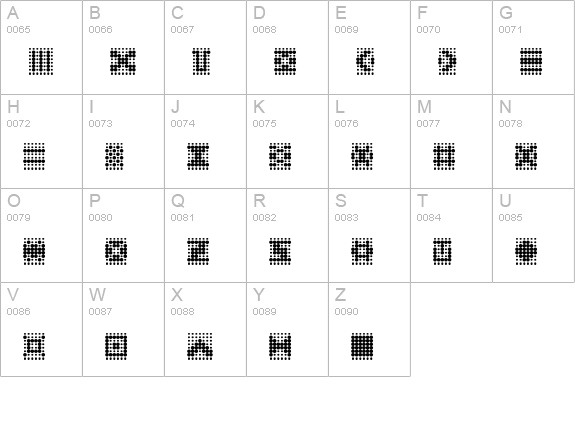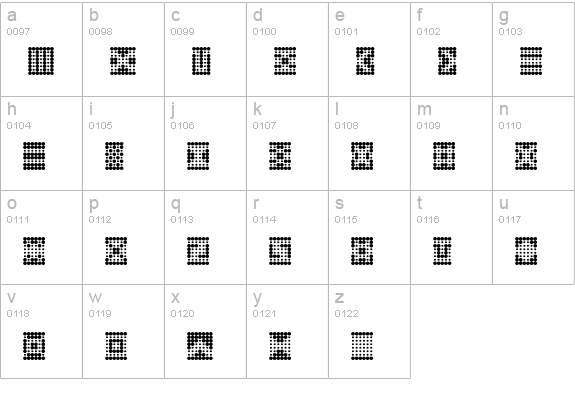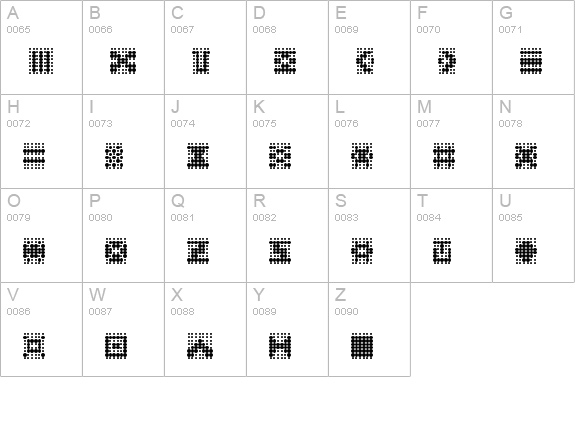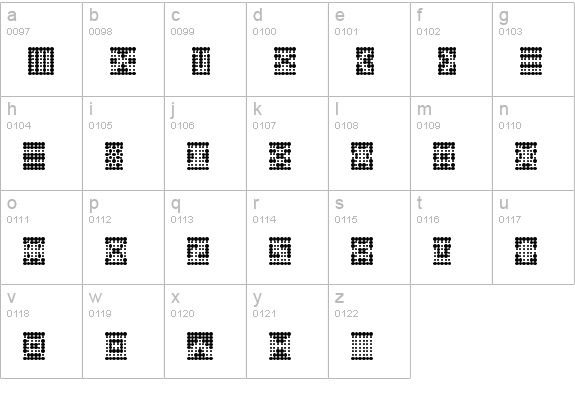
Peppered BTN Ornaments Font Details
Peppered BTN Ornaments is a captivating and versatile font that adds a touch of elegance and sophistication to any design project. With its intricate details and delicate peppered accents, this font is truly one of a kind. It exudes a timeless charm that effortlessly enhances the visual appeal of logos, invitations, posters, and more. What sets Peppered BTN Ornaments apart is not only its stunning aesthetics but also its incredible versatility. Whether you're looking to create a vintage-inspired design or a modern and sleek look, this font has got you covered. Its refined curves and carefully designed ornamentation make it a perfect choice for adding a touch of refinement to any project. But what makes this font even more remarkable is the fact that it is available for free. Yes, you read that right! Peppered BTN Ornaments can be freely downloaded at FontsMarket.com, allowing you to effortlessly incorporate this stunning font into your designs without breaking the bank. So, why wait? Don't miss out on the opportunity to elevate your designs with Peppered BTN Ornaments. Download it for free today at FontsMarket.com and let your creativity soar to new heights.